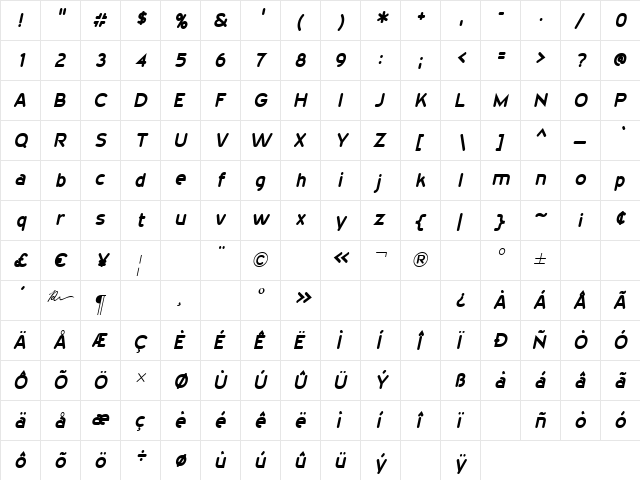
20th Century Font Italic
Design Context for 20th Century Font Typeface
20th Century Font takes a measured approach to typography — its balanced proportions and neutral character make it a reliable workhorse for both digital and print work. The dynamic lean of this cut emphasises speed and emphasis in any layout.
Pro Tip: Try 20th Century Font for annotation and caption copy alongside an upright companion — the contrast in angle creates a dynamic but ordered typographic system.